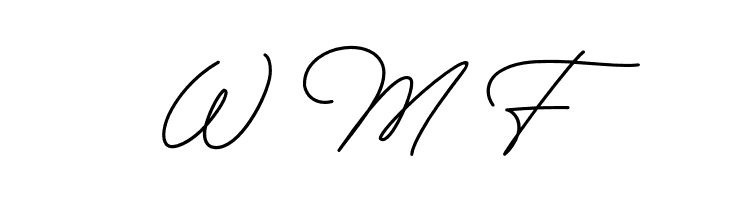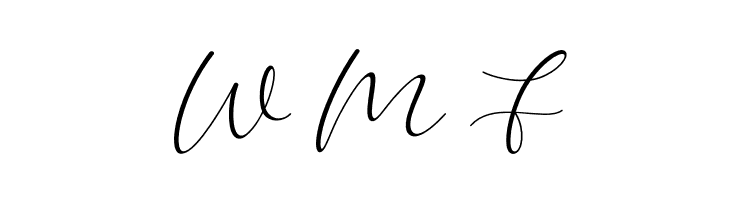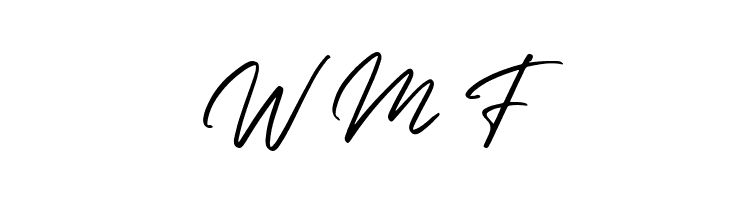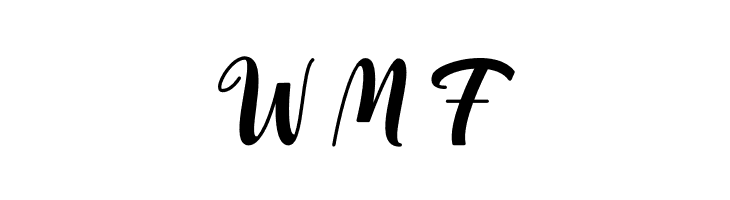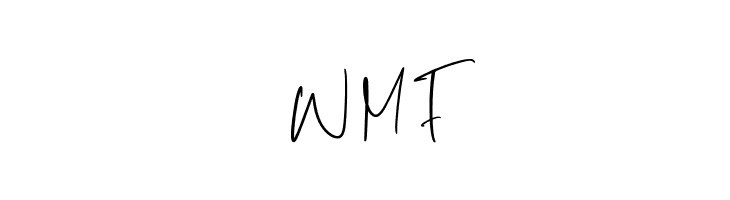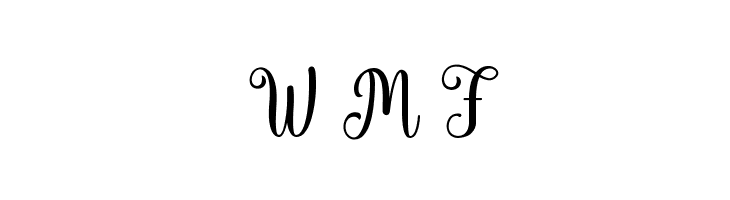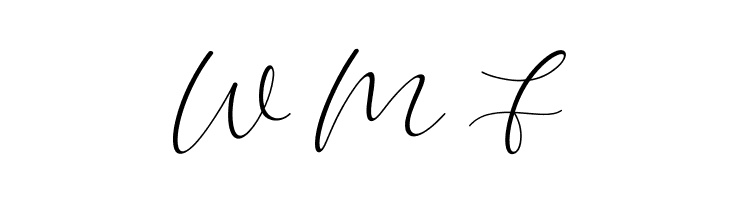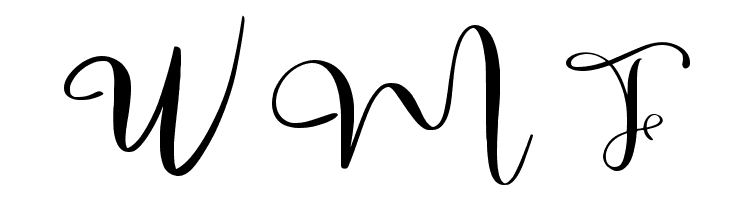
A playful and elegant script font with flowing, interconnected letters.
A playful, modern handwritten font with fluid, connected letterforms.
A bold, brush-style font with a textured, hand-painted look.
A graceful script font with flowing, interconnected letters.
A graceful, flowing script font with elegant, connected characters.
A playful, whimsical handwritten font with fluid, flowing letterforms.
An elegant, flowing script font with bold, decorative flourishes.
A flowing, cursive script font with elegant, connected strokes.
An elegant script font with flowing, ornate letterforms and intricate swashes.
A modern, elegant cursive font with a calligraphic style.